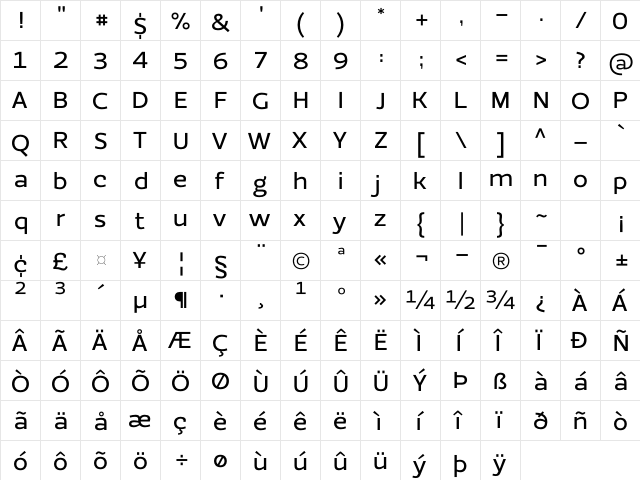
EzzoMedium Regular
| Foundry | Dino dos Santos _DSType |
Design Context for EzzoMedium Typeface
EzzoMedium takes a measured approach to typography — its balanced proportions and neutral character make it a reliable workhorse for both digital and print work.
Dating back to 2006, this typeface is available in OpenType (OTF) format.